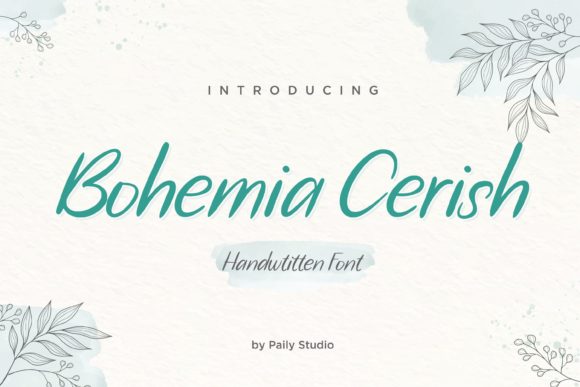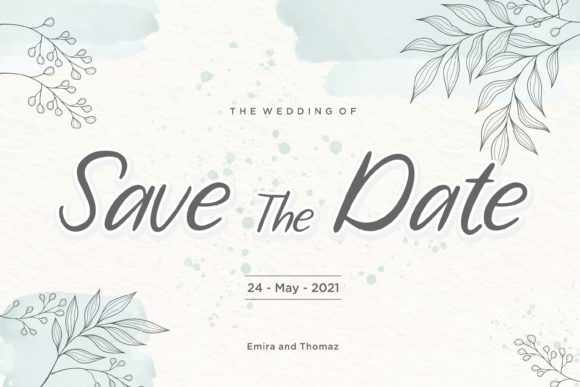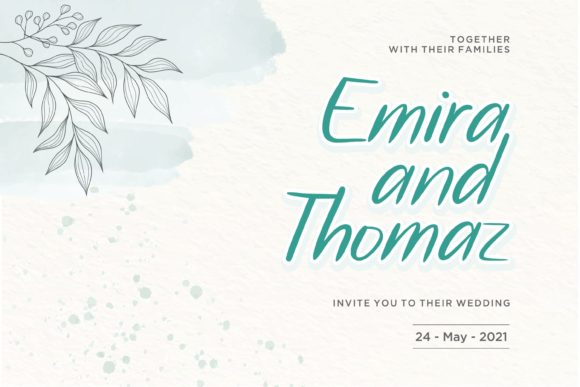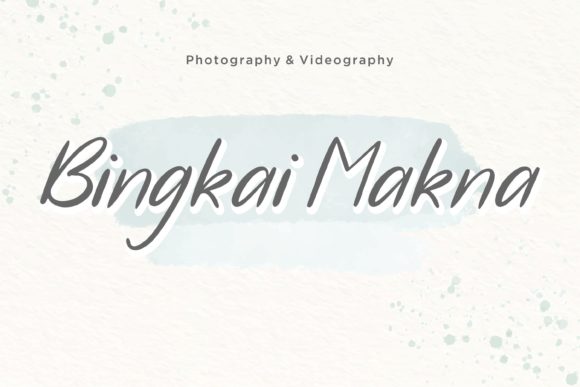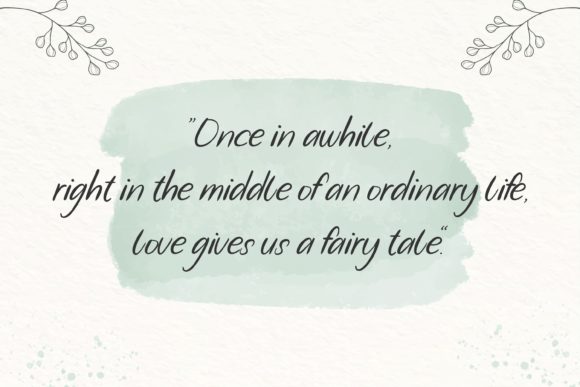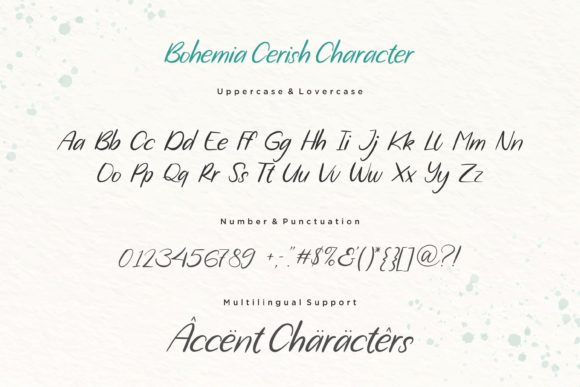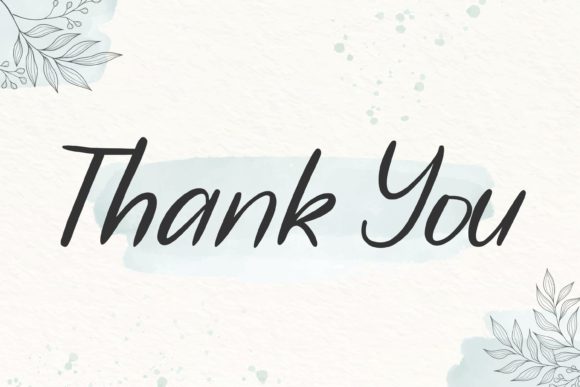
Bohemia Cerish Font
About Bohemia Cerish Font
Bohemia Cerish is a delicate, elegant and flowing handwritten font. It has beautiful and well balanced characters and as a result, it matches a wide pool of designs. Bohemia Cerish features a varying baseline, smooth lines, gorgeous glyphs and stunning alternates.